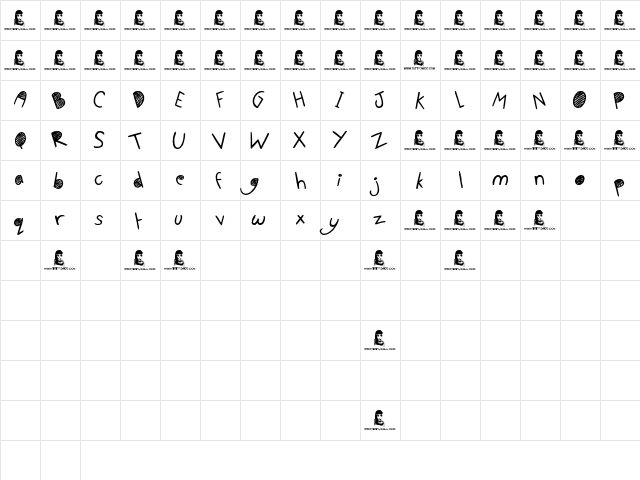
No Talking Allowed Regular
Design Context for No Talking Allowed Typeface
No Talking Allowed is a composed and adaptable typeface that performs quietly and consistently across a wide range of design contexts.